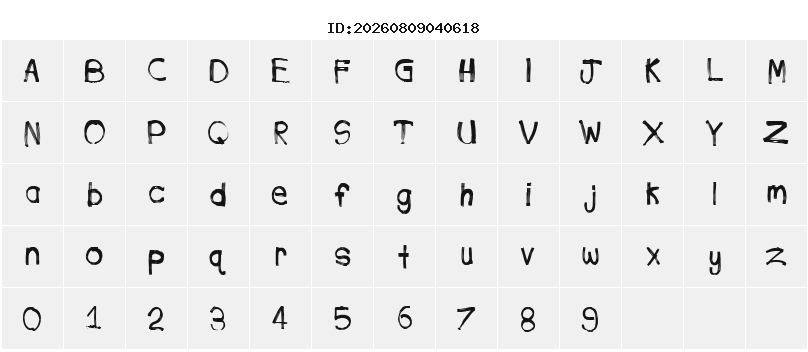
PhoneStreak Preview
• Font Name: PhoneStreak
• Designer: Shaink
• Manufacturer: Marcus Byrne
About PhoneStreak.ttf
PhoneStreak.ttf is a modern, elegant sans-serif font designed for ultimate readability and visual harmony. Perfect for branding, headlines, web design, and print materials.